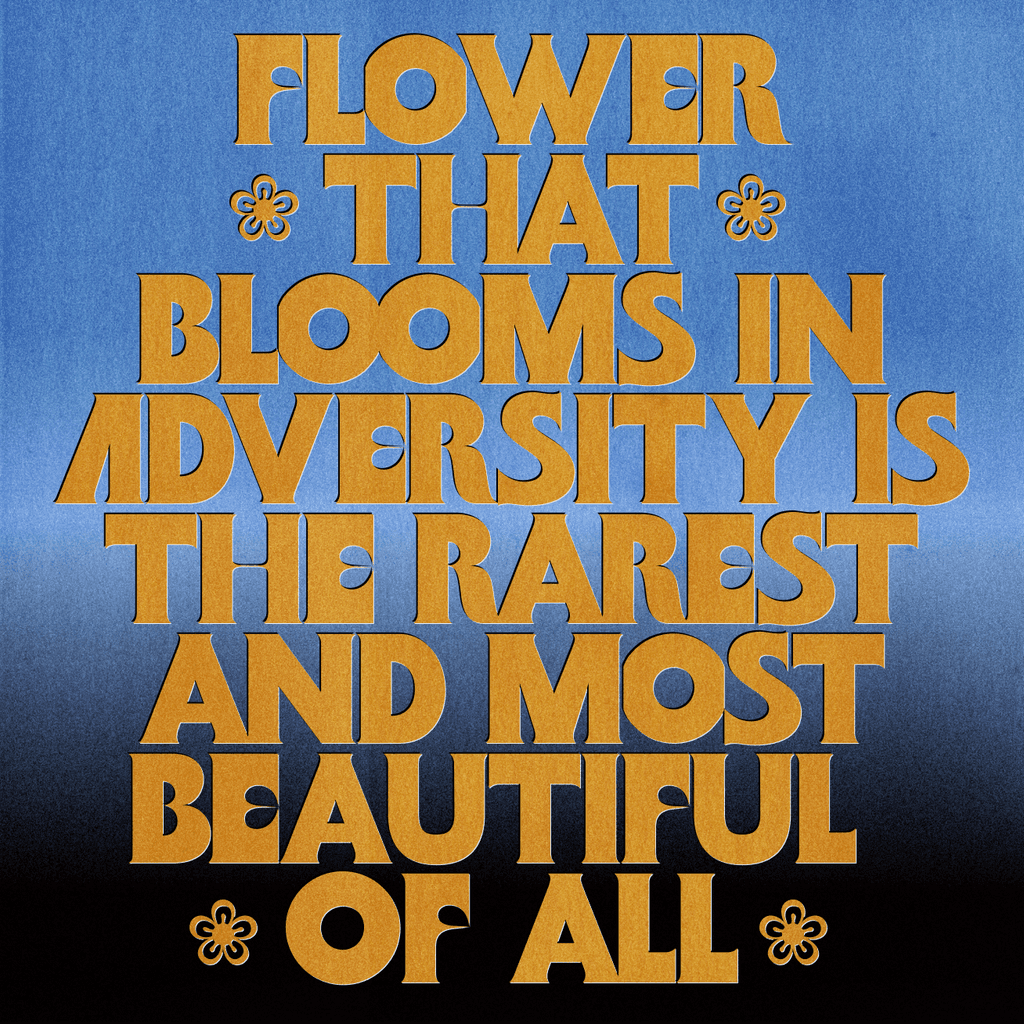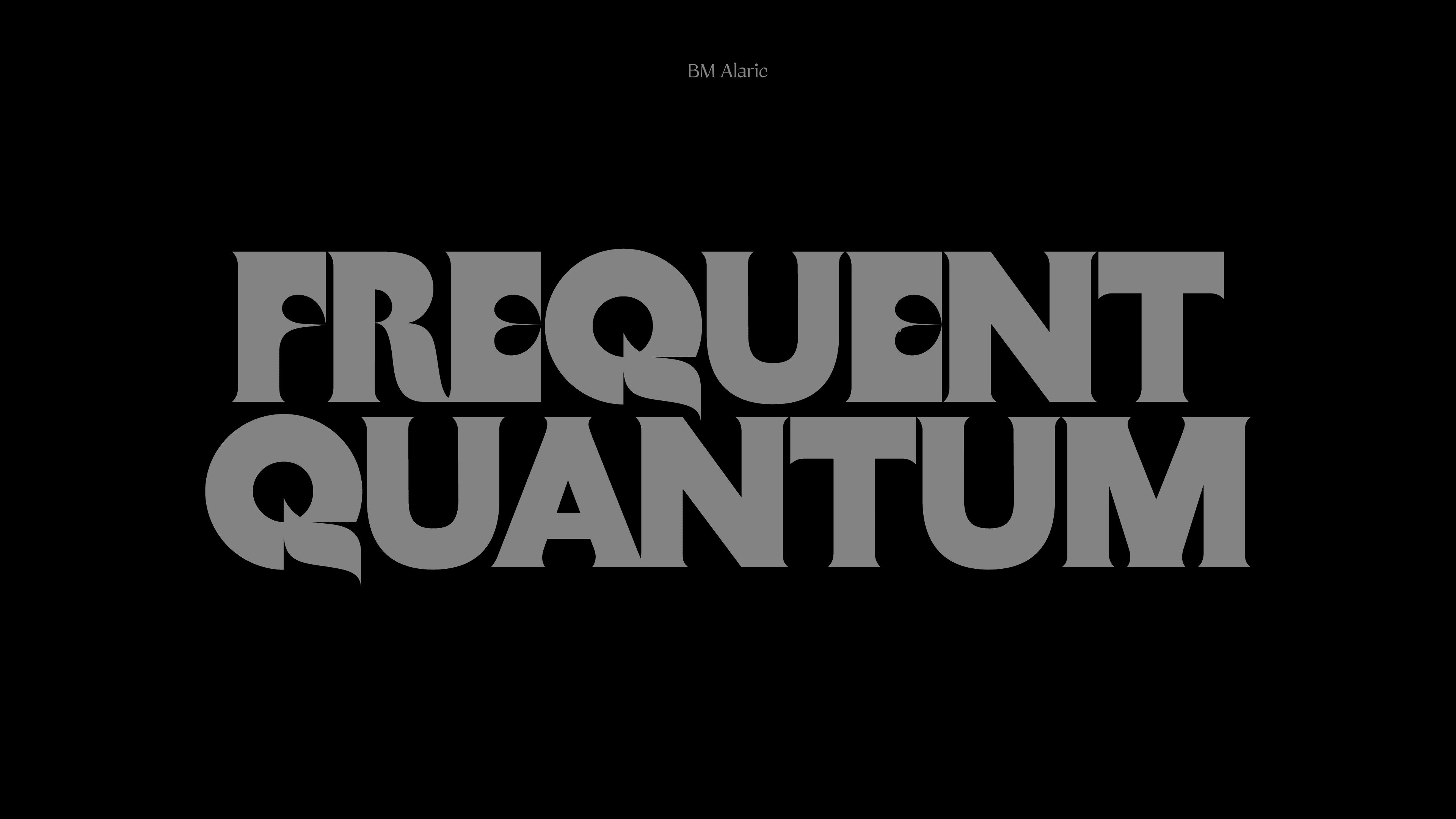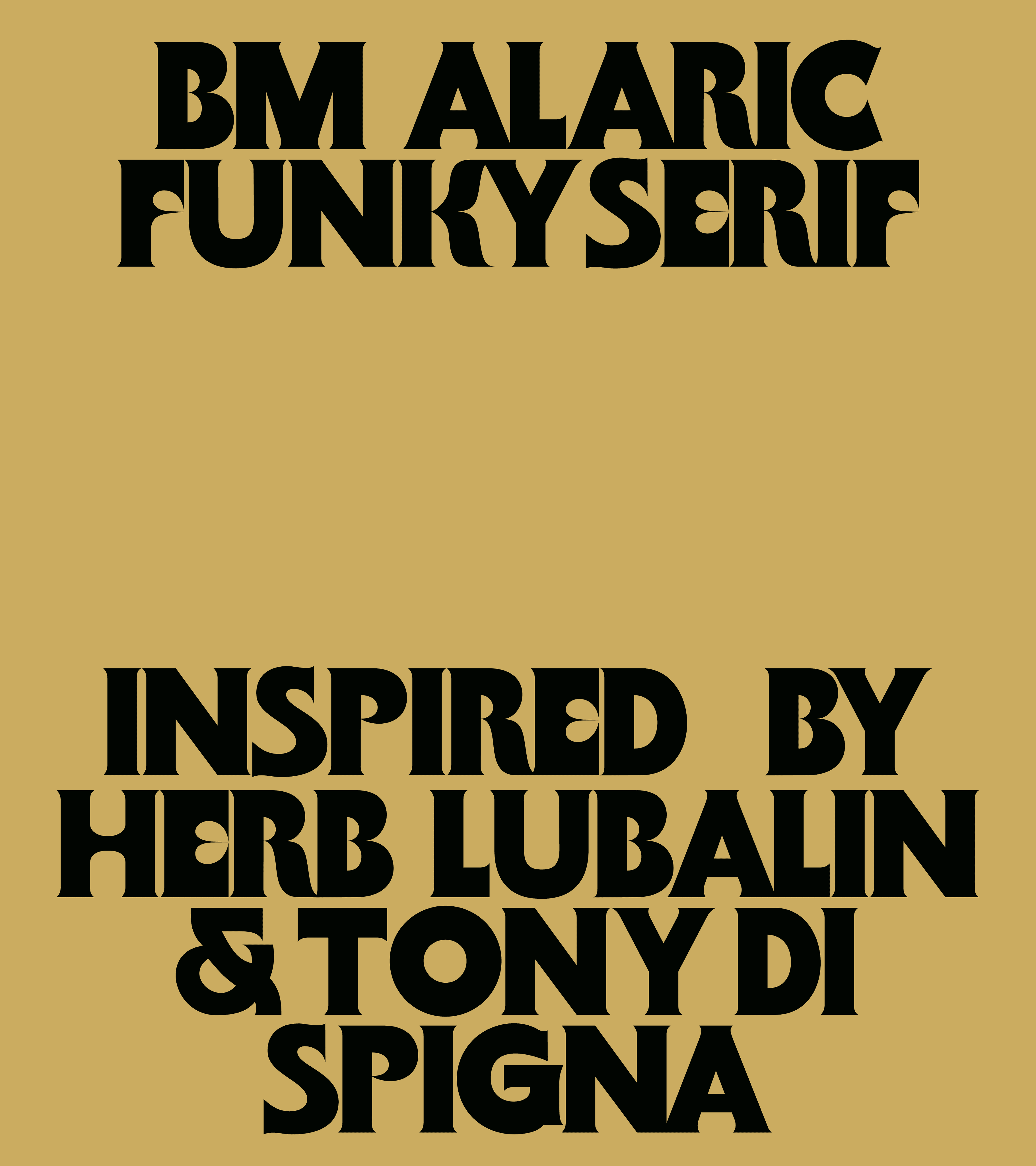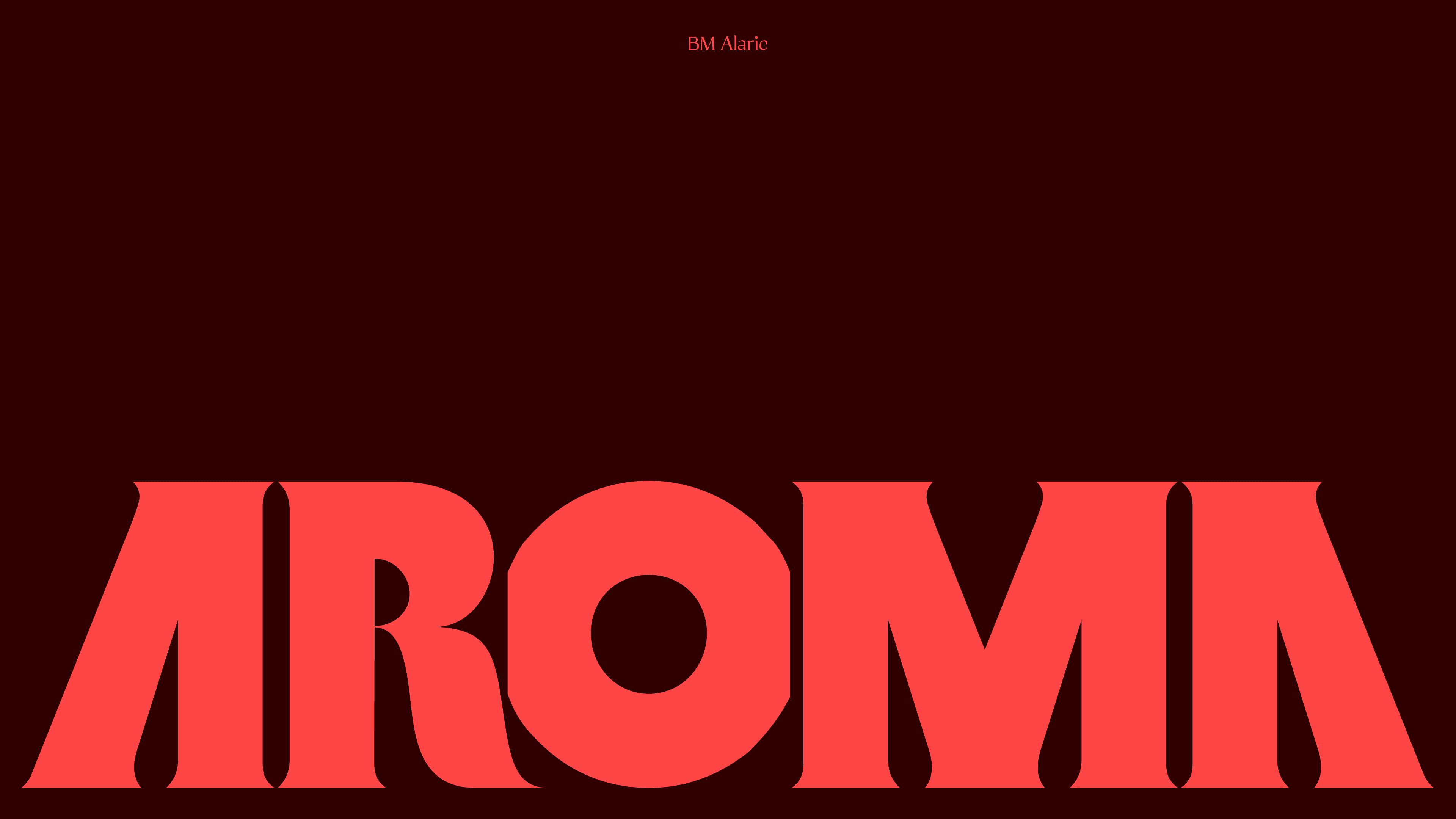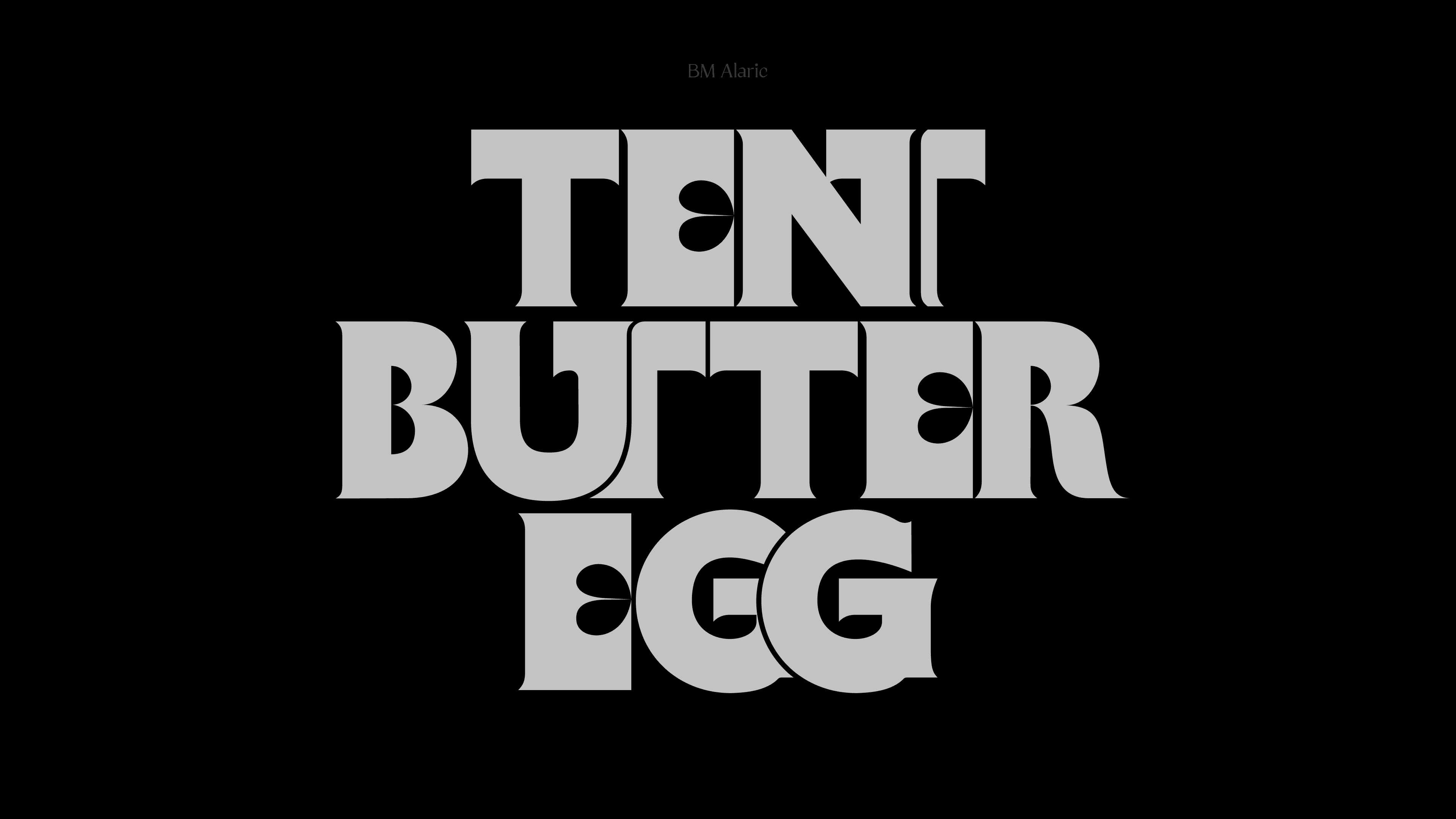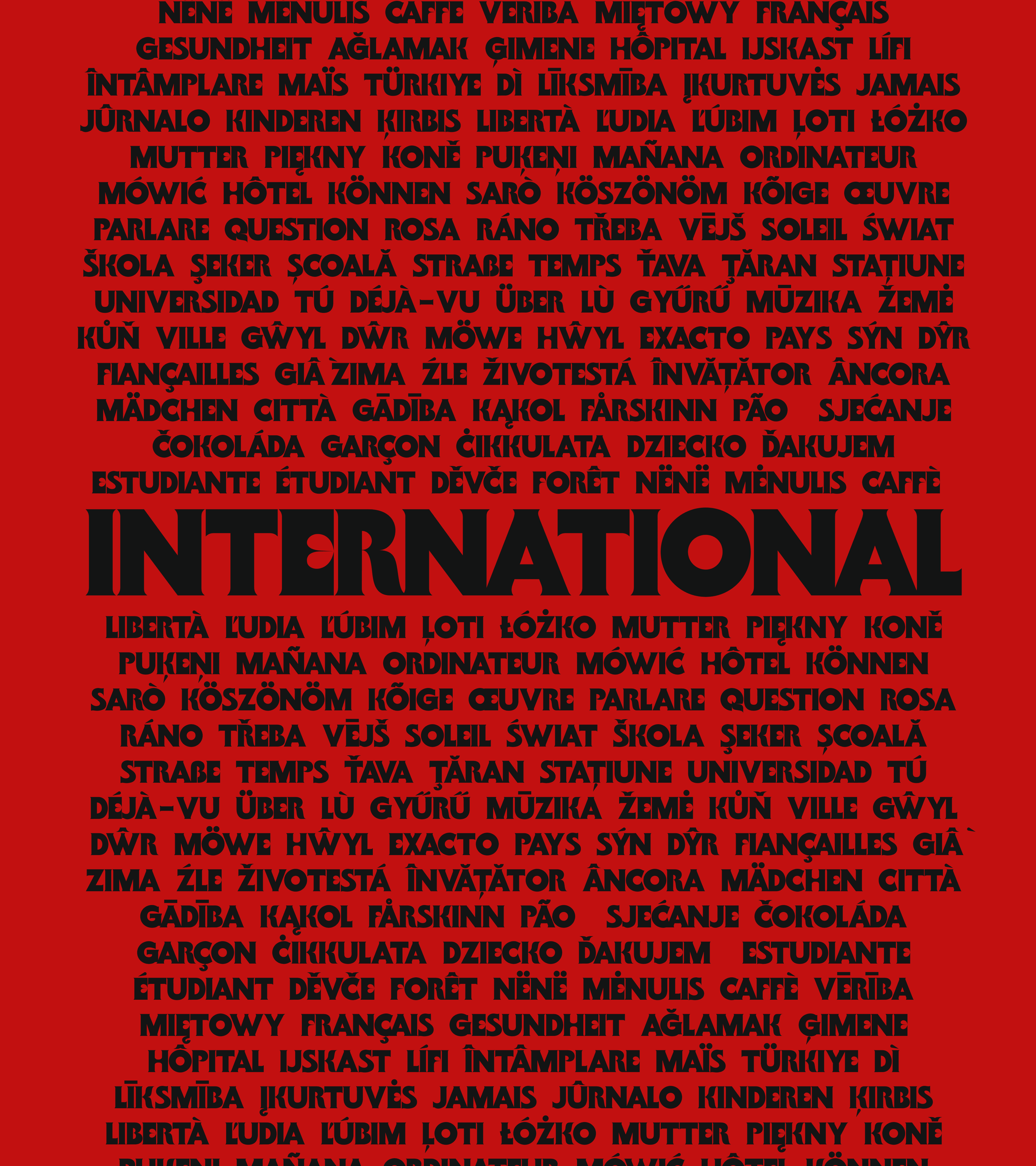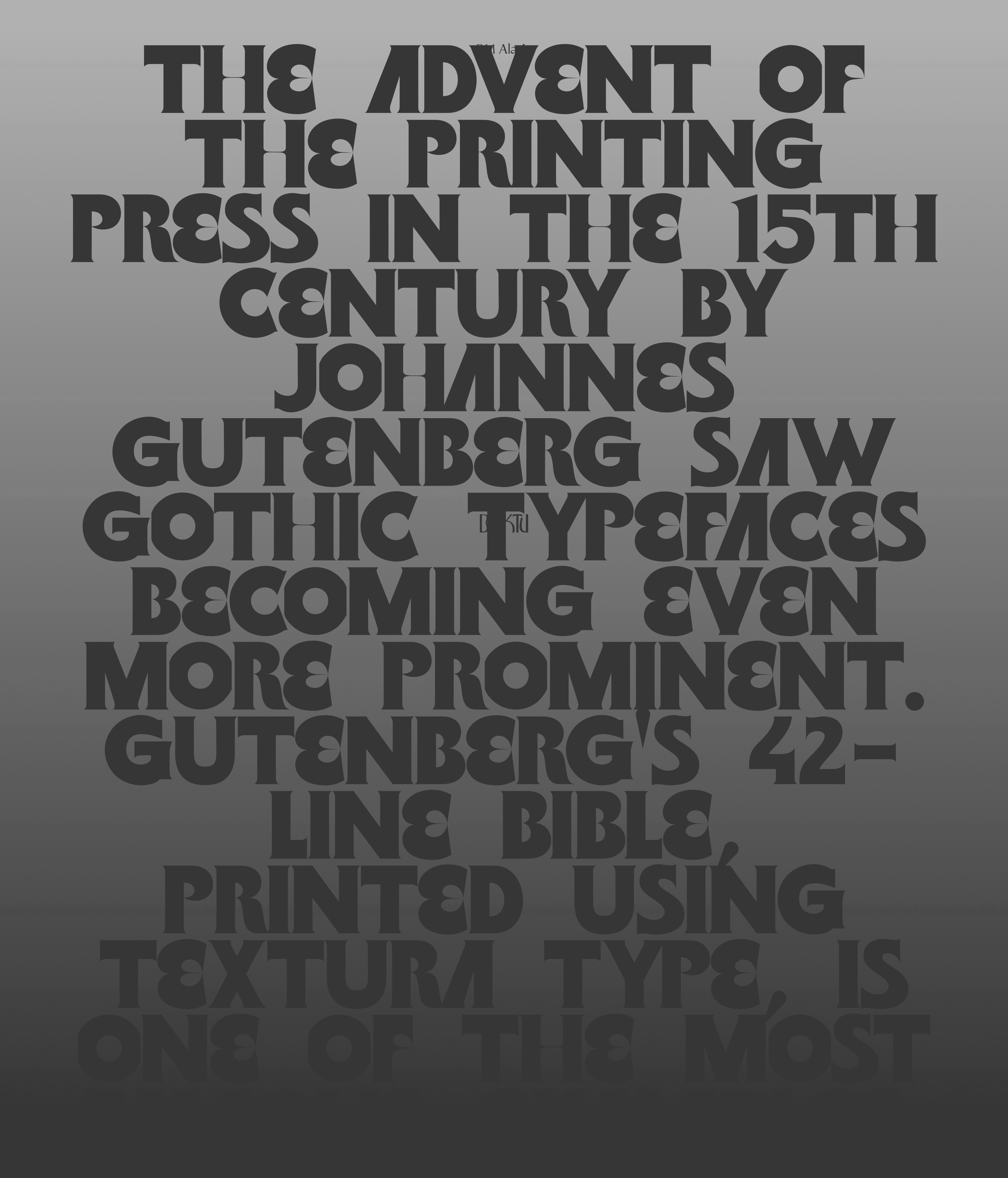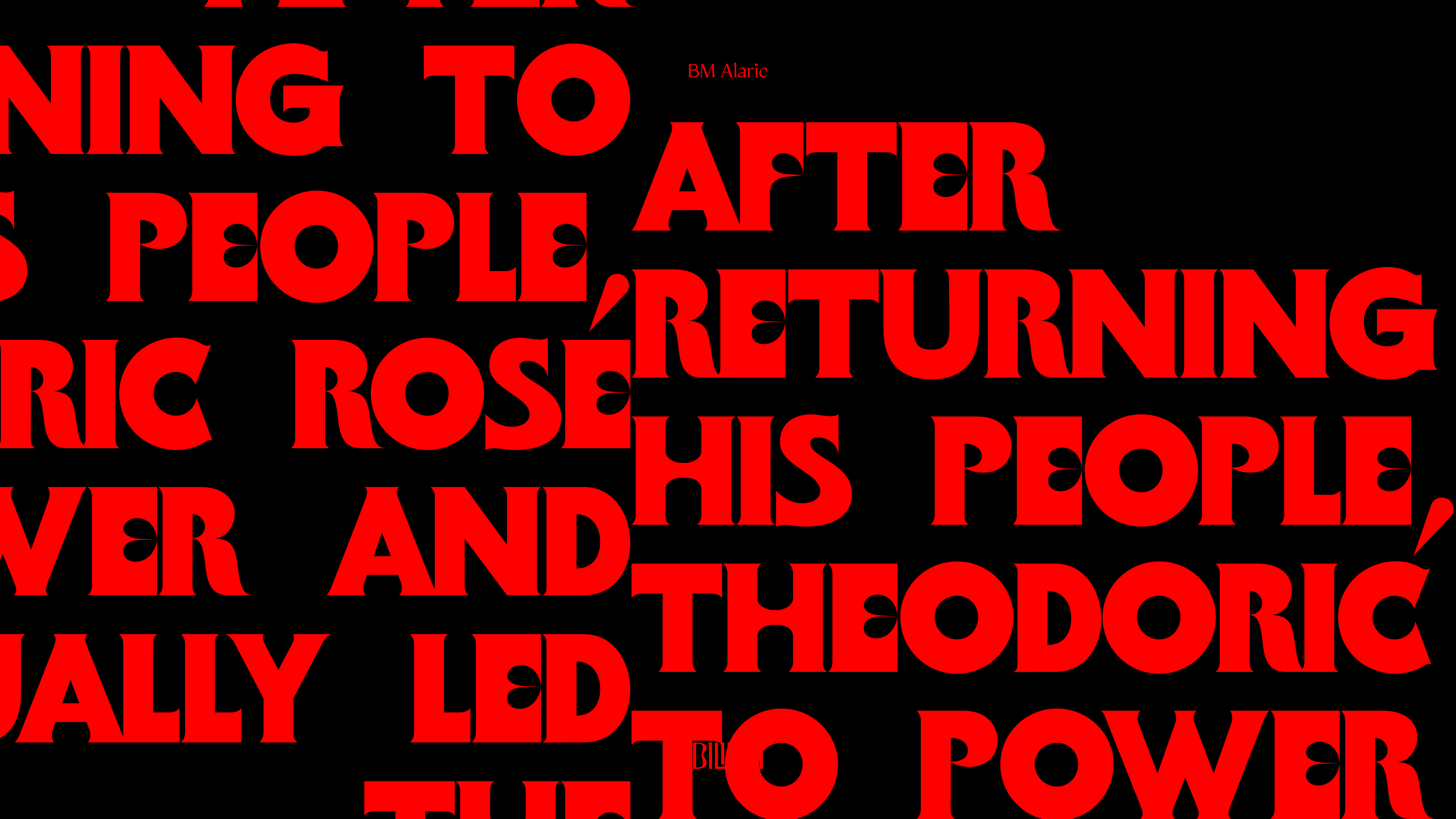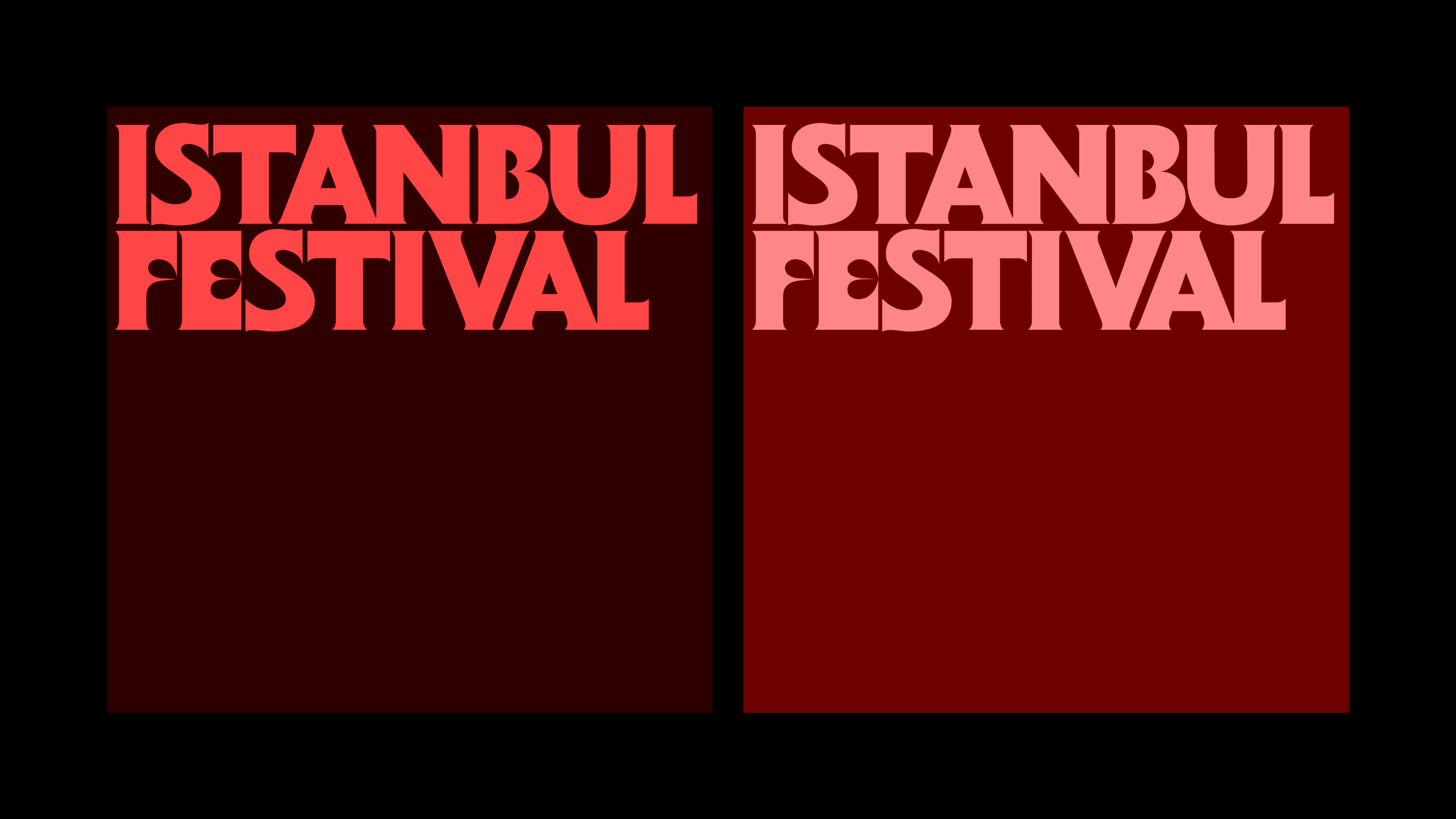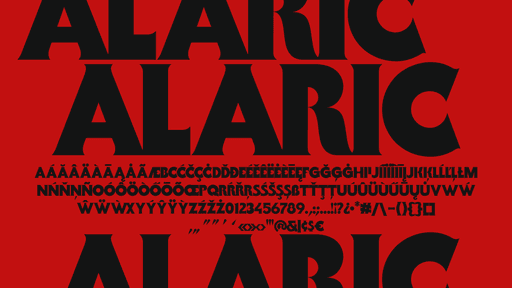
Introducing BM Alaric – a vibrant and distinctive typeface inspired by the elegance of Herb Lubalin’s and Tony Di Spigna’s Serif Gothic, yet reimagined with a funky and playful twist. This font infuses the spirit of the Biliktu Foundry’s unique style, featuring alternative characters and rare ligatures that make it truly one-of-a-kind.
BM Alaric is perfect for music artists, cafes, product branding, and any creative project you envision. Just as Nero once watched Rome burn and Alaric conquered the city, now let BM Alaric conquer your next design.
Embrace the timeless elegance and modern playfulness of BM Alaric and give your projects a touch of historical grandeur with a contemporary edge.